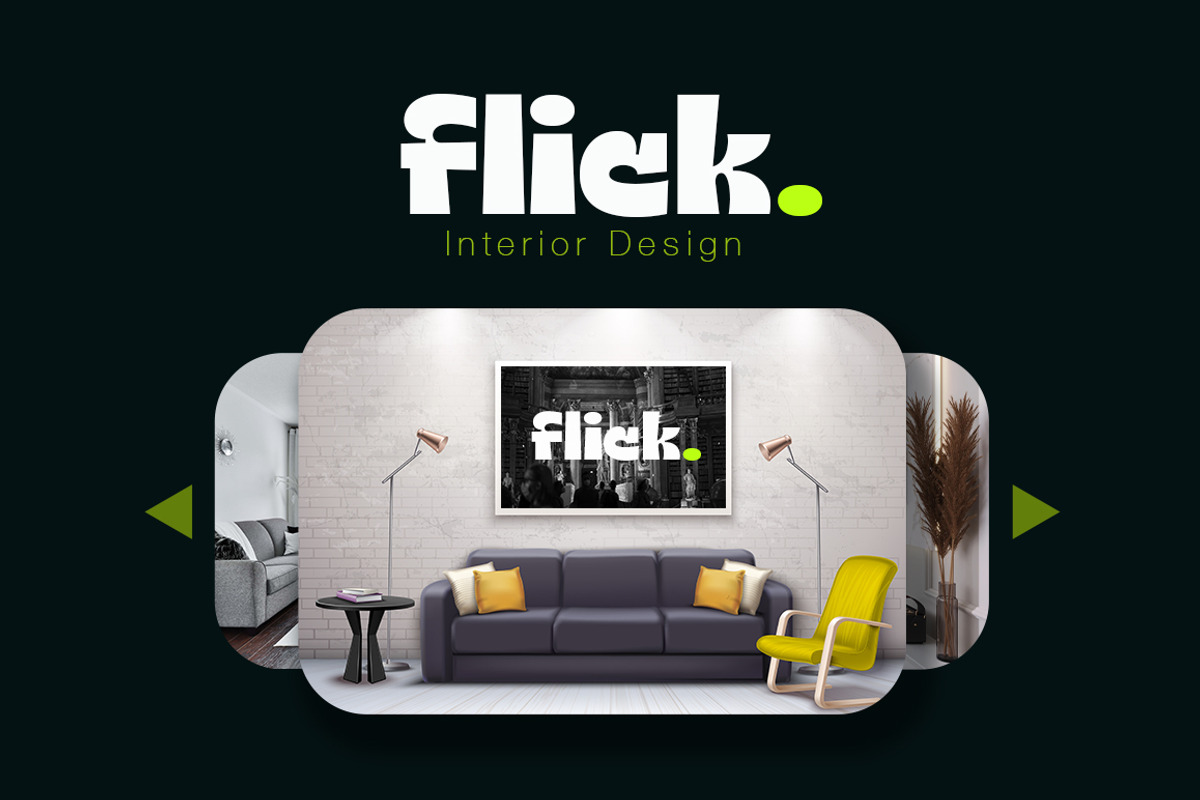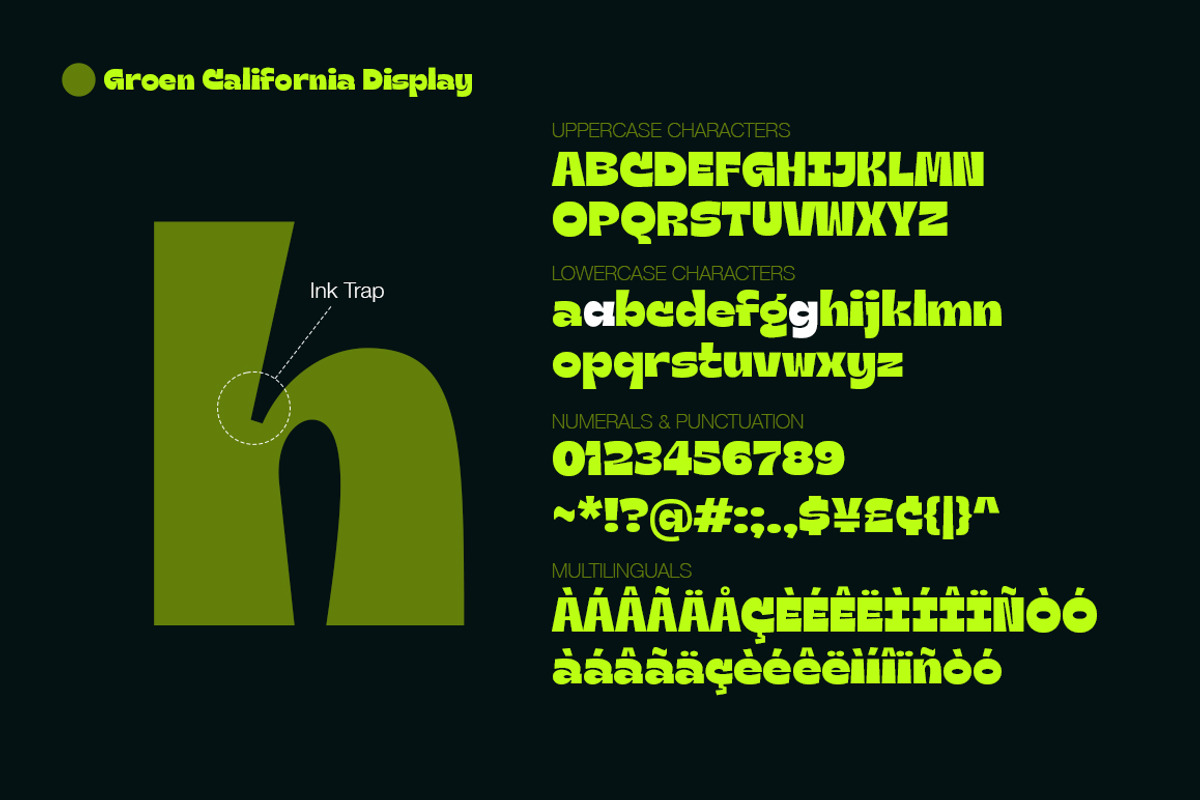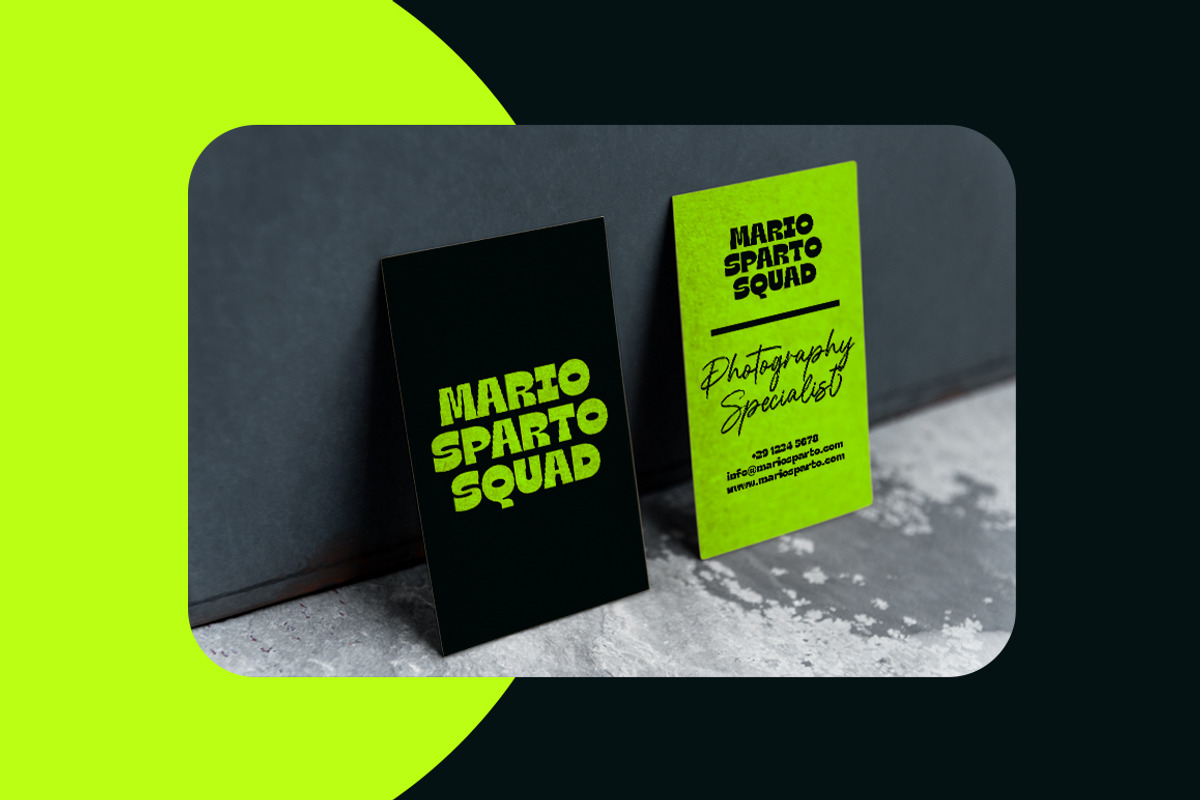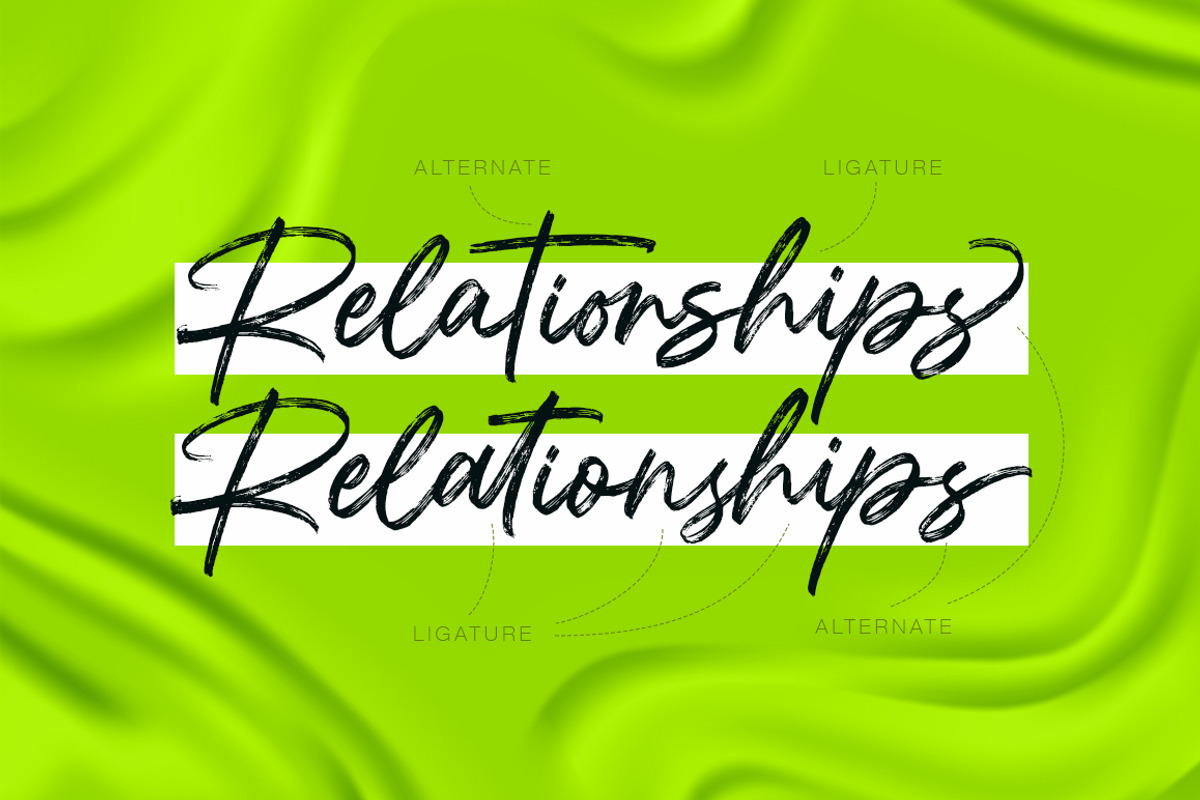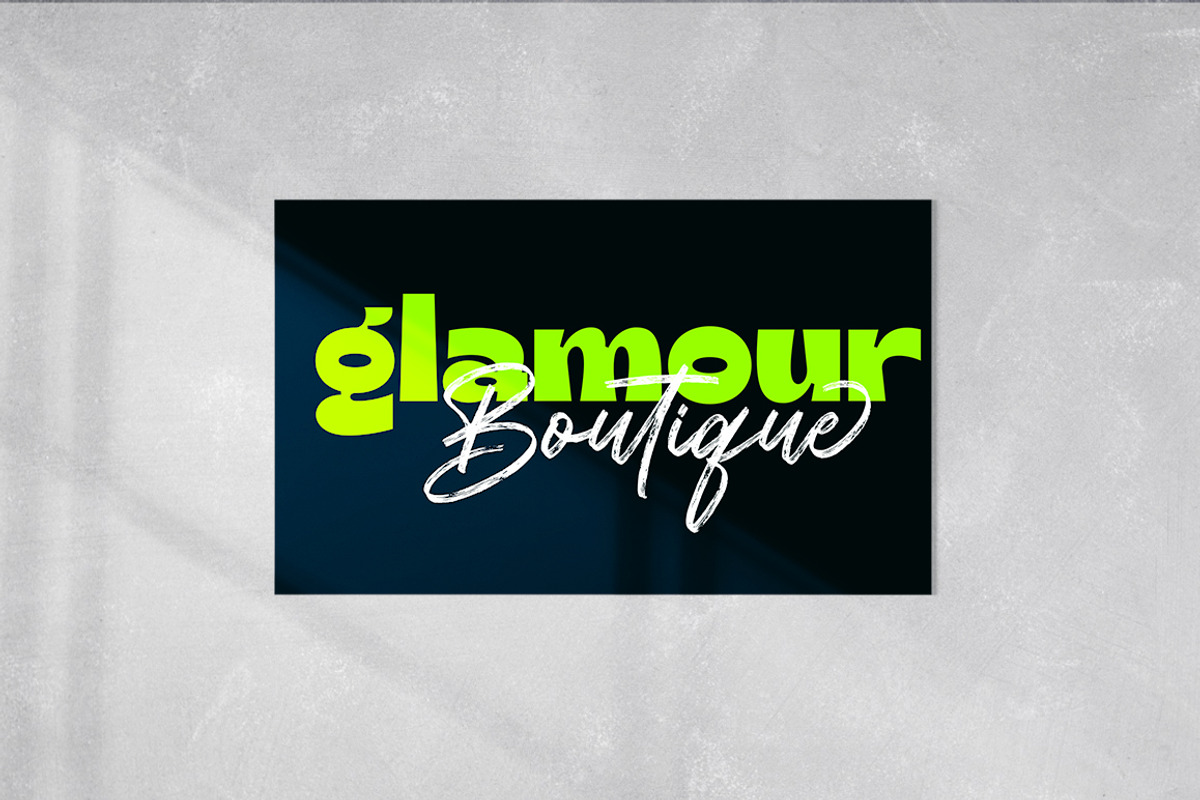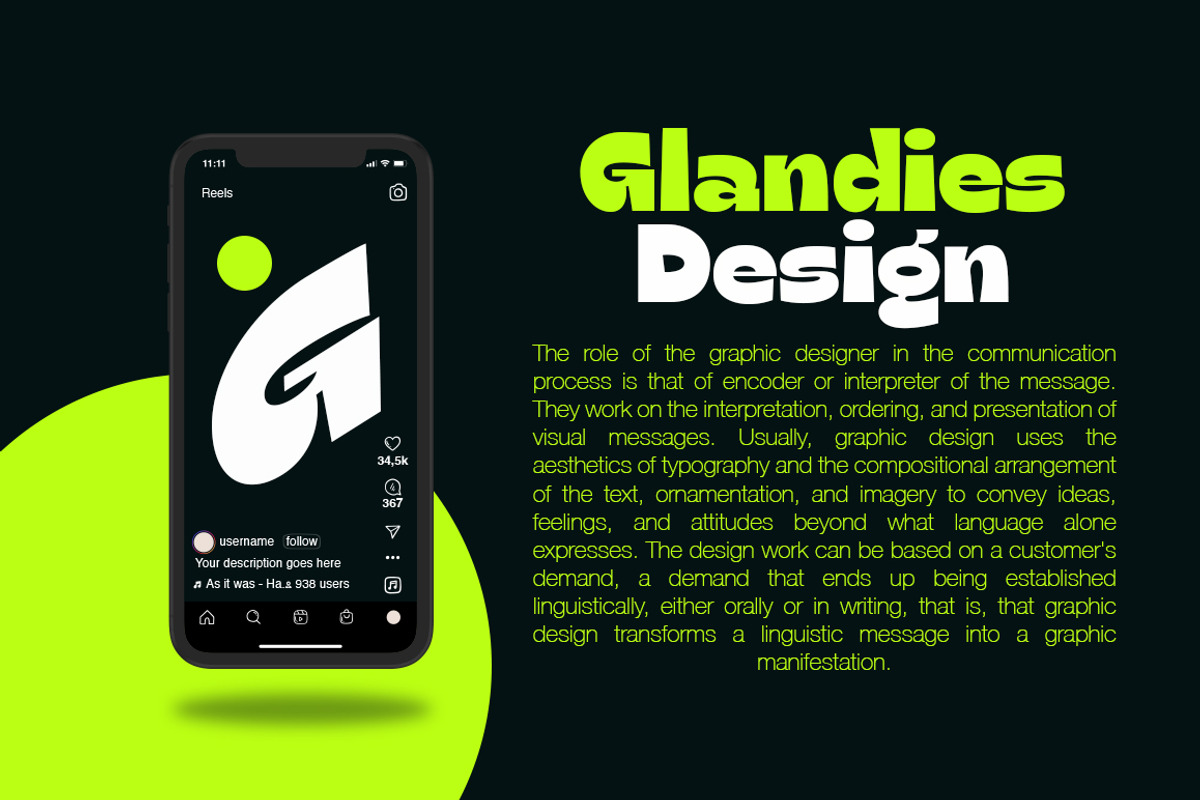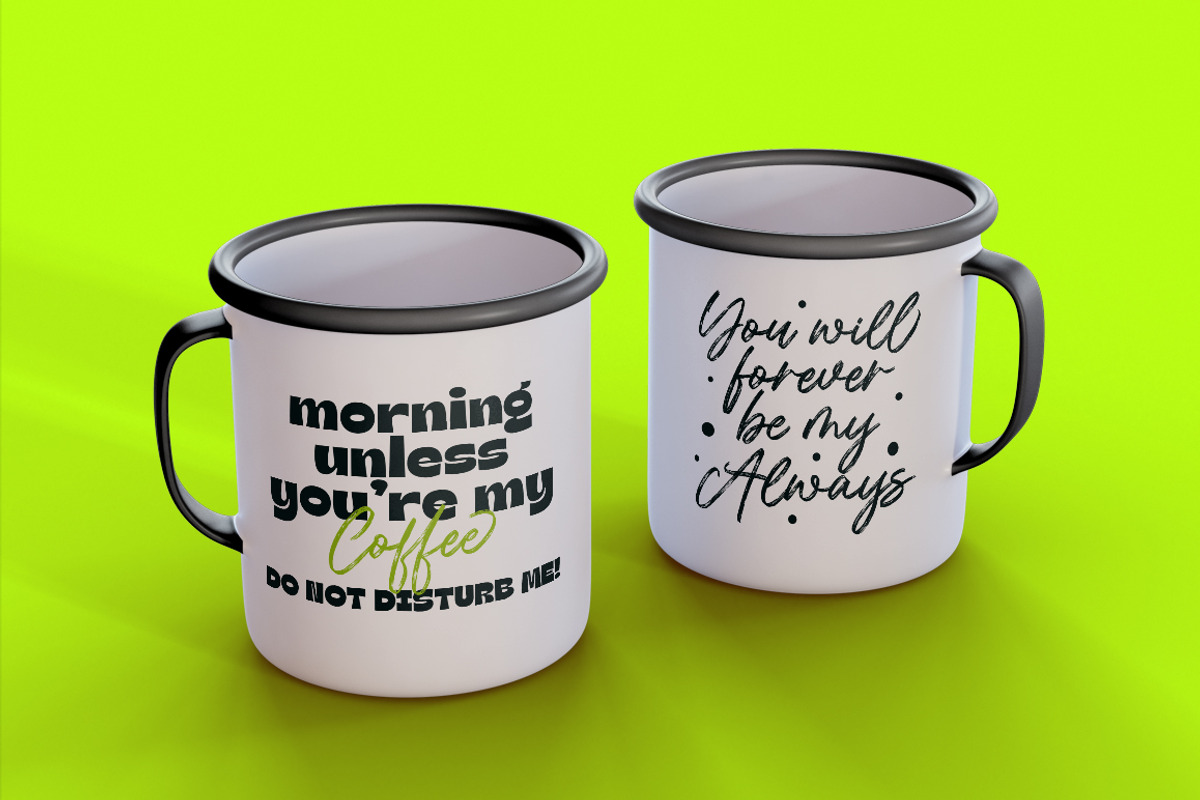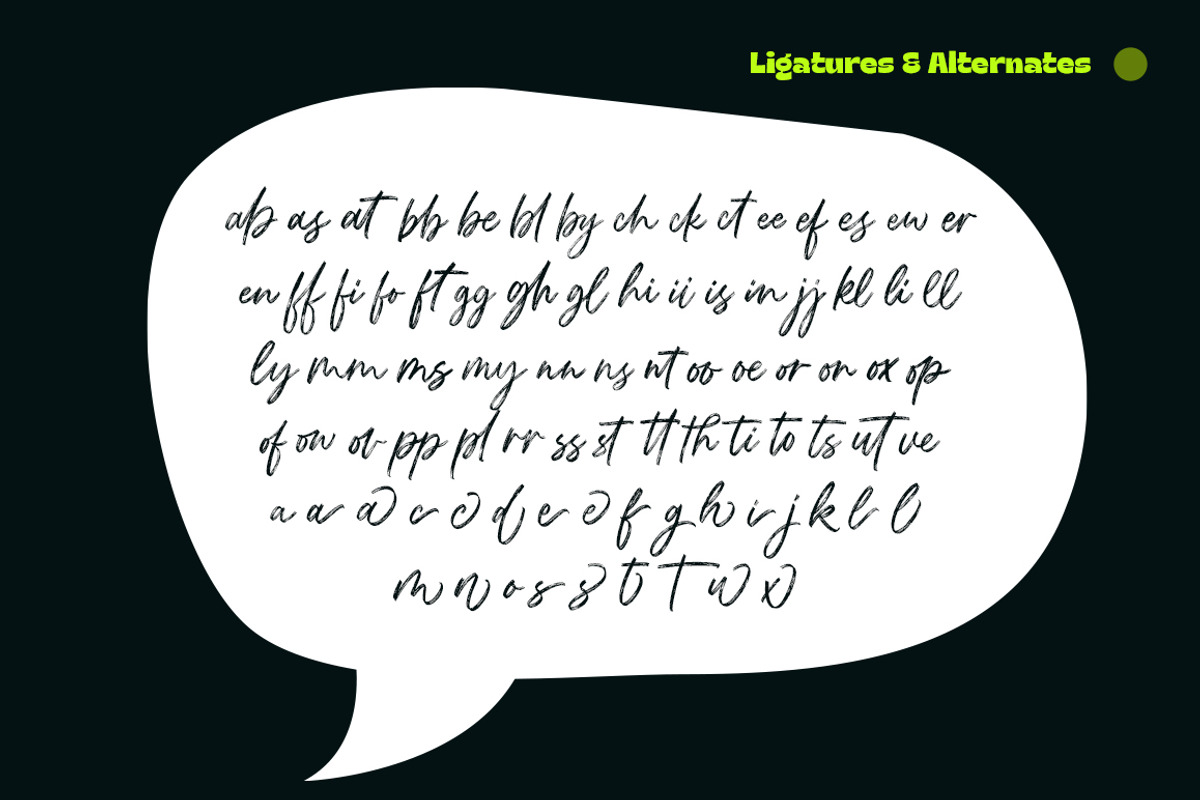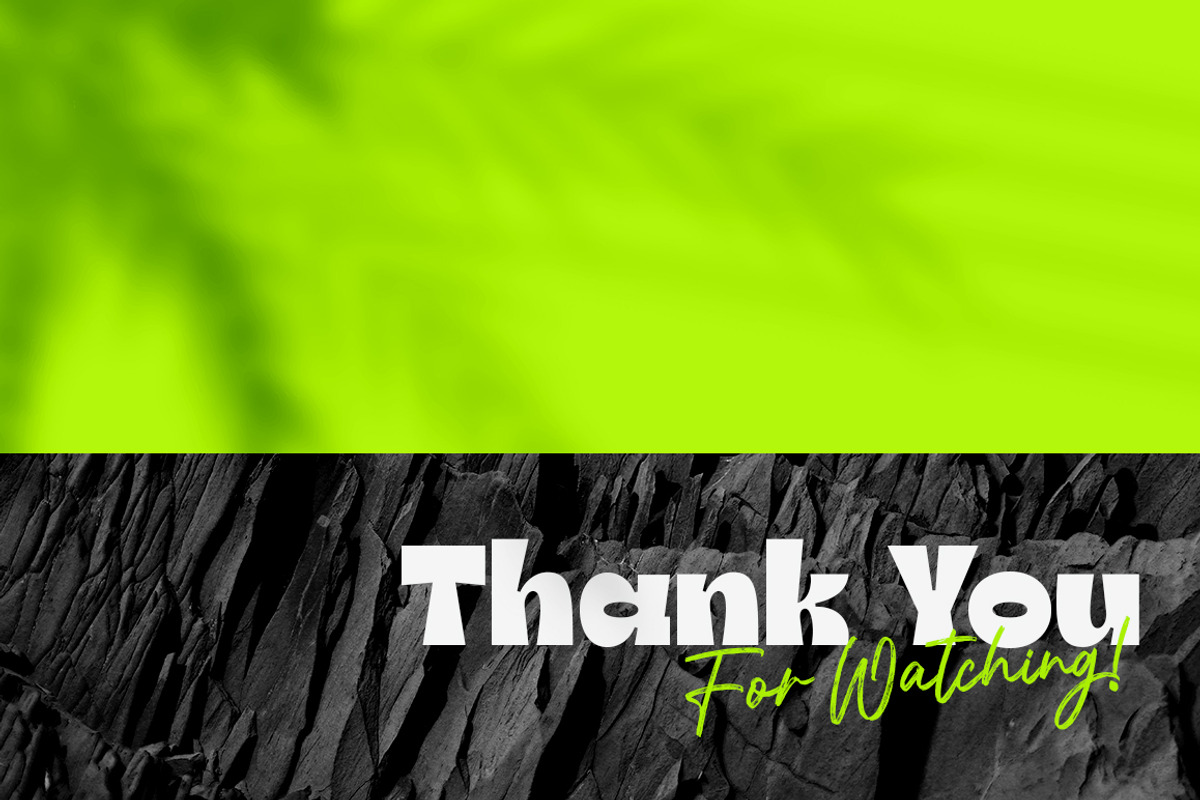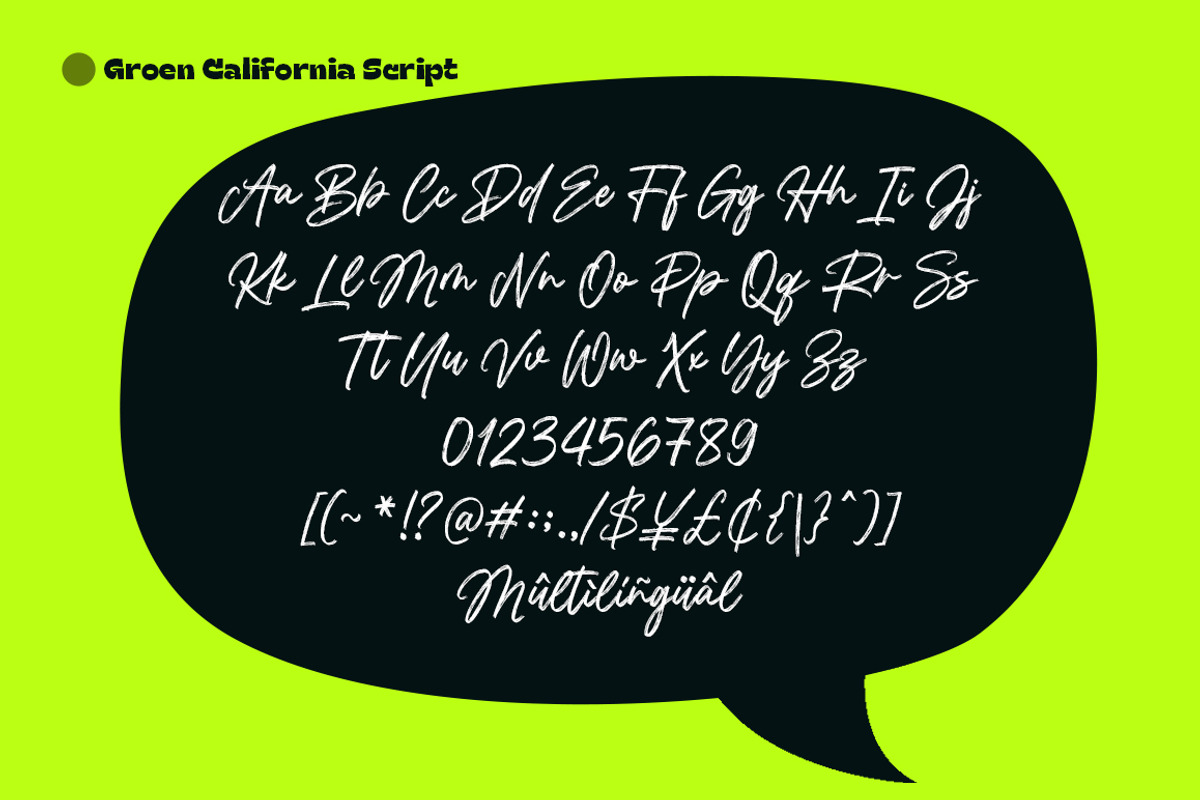
Groen California | Font Duo
Introducing Groen California Font. It’s a cool and fancy font duo. When combined, these two fonts will add a unique spark to any design project!
Groen California Sans is a modern and bold sans serif typeface featuring characters that stand out from every background.
Groen California Script is a brush font with beautiful and natural brush stroke with Alternates and Ligatures, that perfect for logo, poster, product, apparel, packaging and many more.